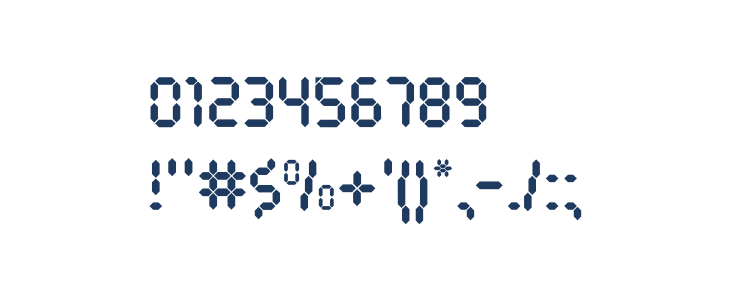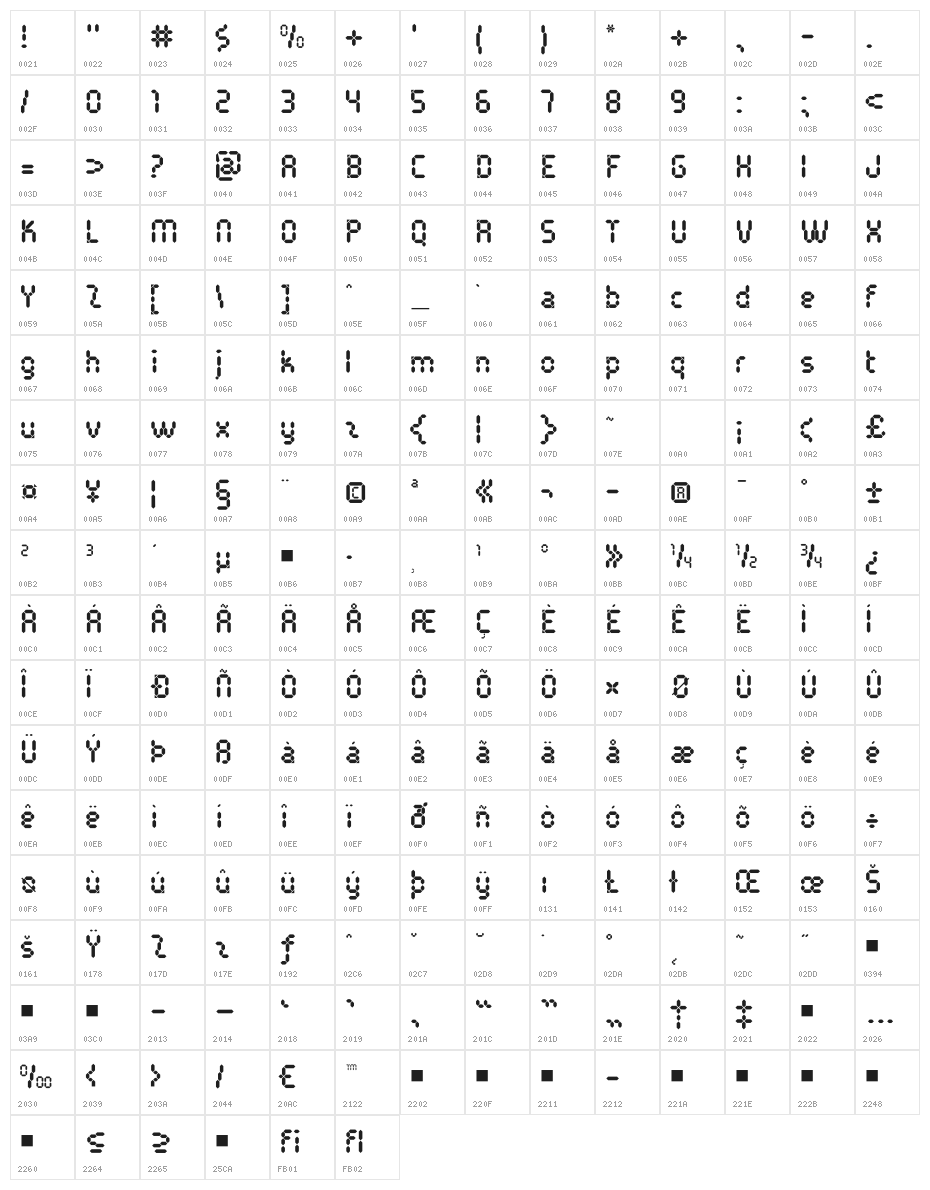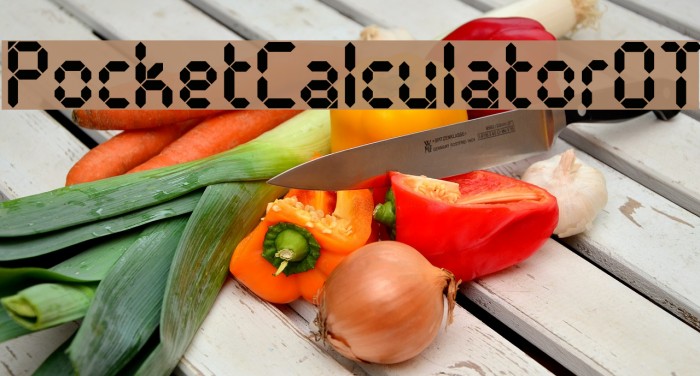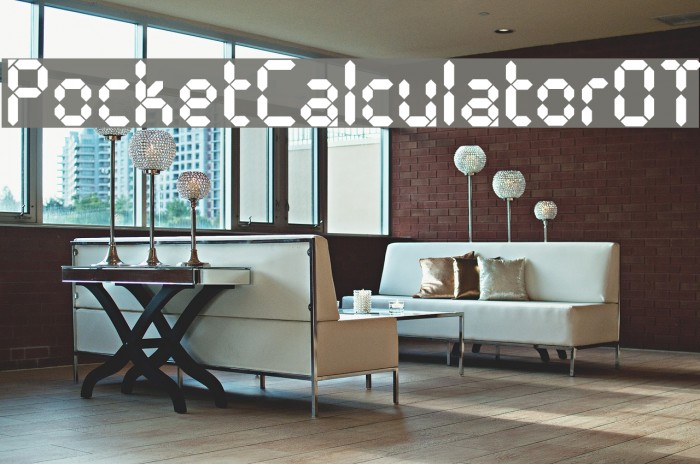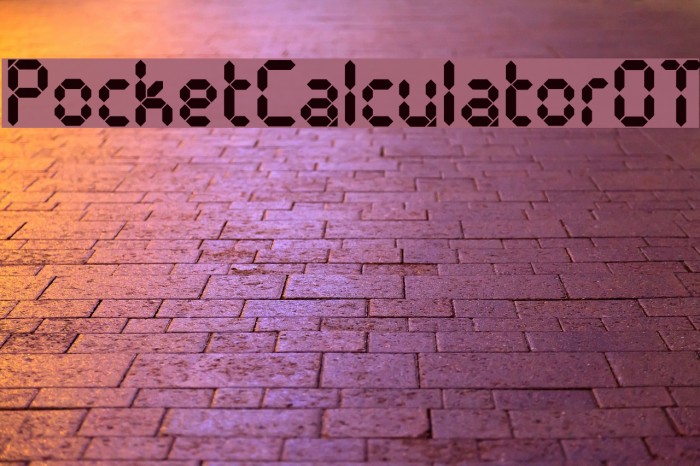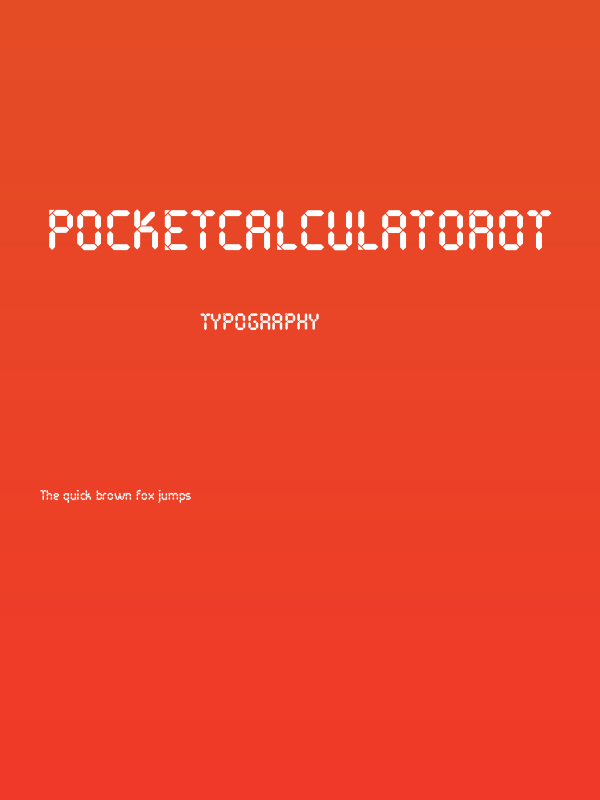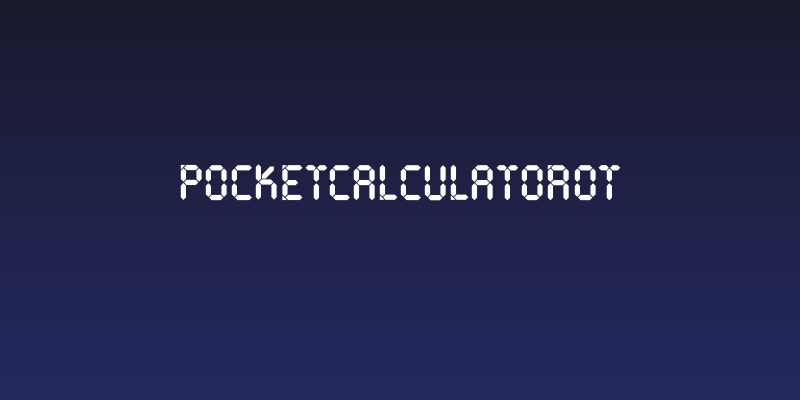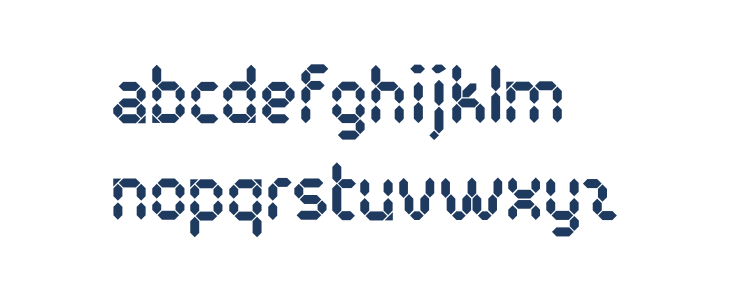
PocketCalculatorOT Font
| Категория | Retro |
| Общий стиль | Retro, Technical |
| Область применения | Headlines, Logos, Digital Interfaces |
| Рекомендуемые проекты | Ideal for retro-themed designs, tech-related projects, digital interfaces, and educational materials. |